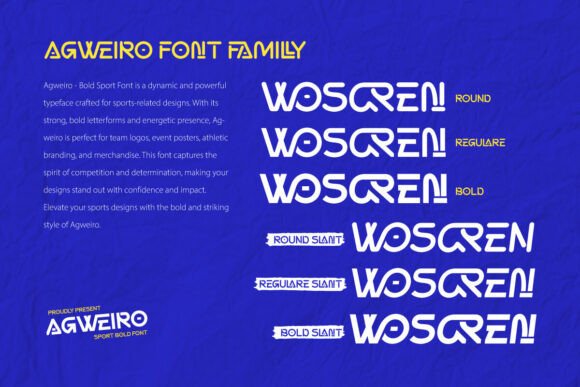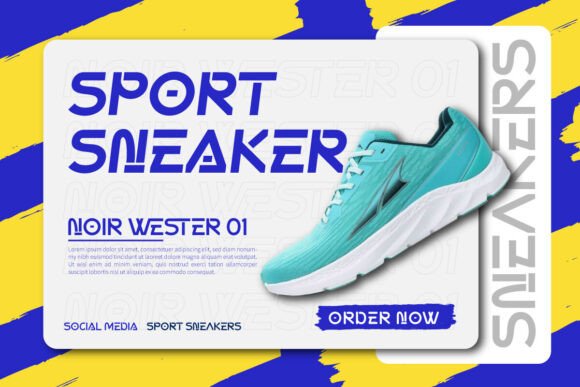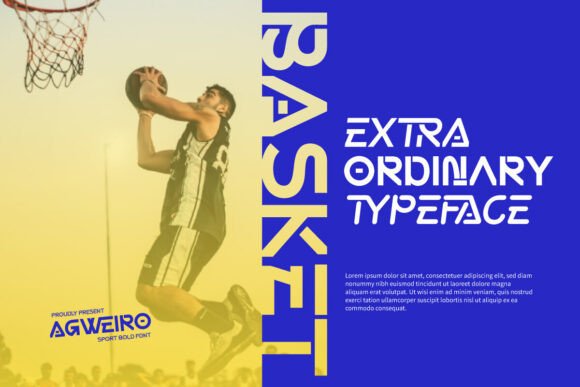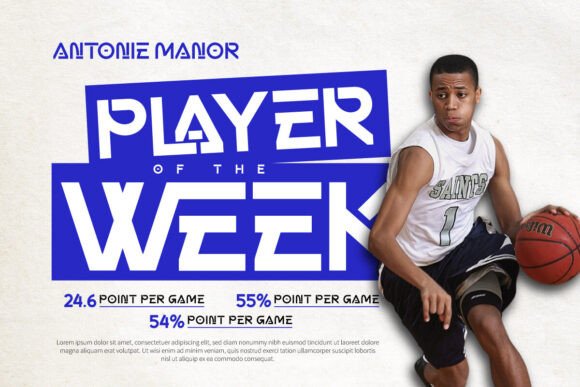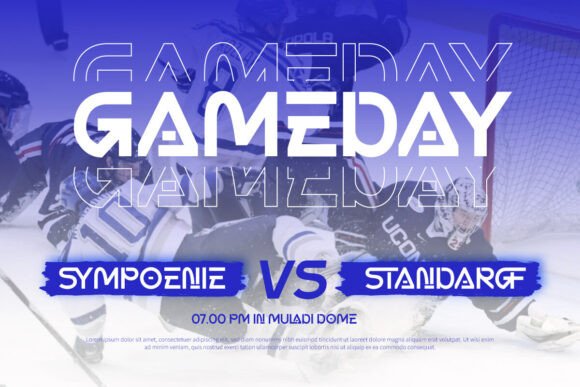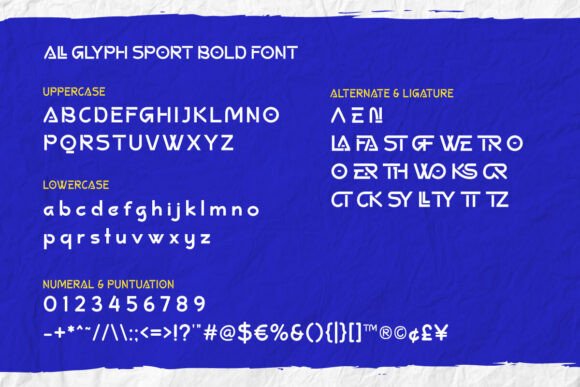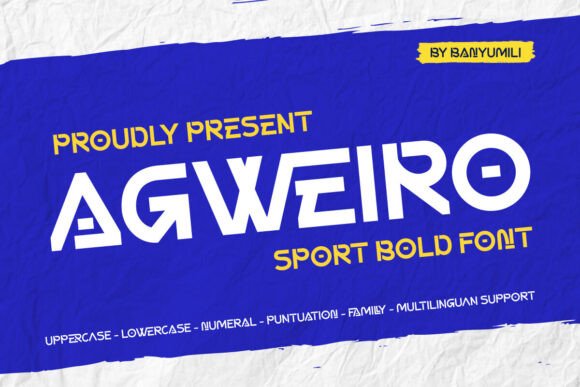
Unleash the Power of Sports Design with Agweiro Font
In the world of sports design, a bold and dynamic typeface can make all the difference. Introducing Agweiro – Bold Sport Font, a striking and robust font specifically crafted for sports-related designs. With its bold, angular letterforms, Agweiro is the perfect choice for team logos, sports posters, and any design that requires a confident and impactful look.
Key Features of Agweiro Font
- Bold and Angular Letterforms: Agweiro’s bold and angular letterforms are designed to convey a sense of strength, energy, and competition, making it ideal for sports-related designs.
- Style Alternatives: The font includes style alternatives, allowing designers to experiment with different looks and find the perfect fit for their project.
- Multilingual Support: Agweiro supports multiple languages, making it a versatile choice for designers working on international sports projects.
Perfect for Sports Designs
Agweiro font is specifically designed to capture the spirit of competition and determination that defines the world of sports. Its bold and dynamic style makes it perfect for:
- Team Logos: Create a strong and recognizable brand identity for sports teams with Agweiro’s bold and confident letterforms.
- Sports Posters: Make a statement with eye-catching sports posters that showcase Agweiro’s dynamic and energetic style.
- Sports Jerseys and Apparel: Add a professional and athletic touch to sports jerseys and apparel with Agweiro’s bold and sporty font.
Why Choose Agweiro Font?
With Agweiro font, designers can elevate their sports designs with a bold and confident style that demands attention. Here are just a few reasons why Agweiro stands out:
- Unique and Memorable: Agweiro’s bold and angular letterforms create a unique and memorable visual identity that sets sports designs apart.
- Highly Versatile: With style alternatives and multilingual support, Agweiro is an adaptable font that can be used in a wide range of sports design projects.
- Easy to Read: Despite its bold style, Agweiro remains easy to read, even at smaller sizes, making it perfect for use on jerseys, posters, and other materials.
Tips for Using Agweiro Font
To get the most out of Agweiro font, here are a few design tips to keep in mind:
- Experiment with Style Alternatives: Try out different style alternatives to find the perfect look for your project.
- Pair with Complementary Fonts: Combine Agweiro with complementary fonts to create a cohesive and visually appealing design.
- Use Bold and Bright Colors: Take advantage of Agweiro’s bold style by pairing it with bright and bold colors that match the energy and excitement of sports.
Agweiro – Bold Sport Font is a powerful and dynamic typeface that’s specifically designed to elevate sports designs. With its bold, angular letterforms, style alternatives, and multilingual support, Agweiro is the perfect choice for designers looking to create confident and impactful sports designs. Whether you’re working on team logos, sports posters, or jerseys, Agweiro font is sure to make your designs stand out with confidence and impact.